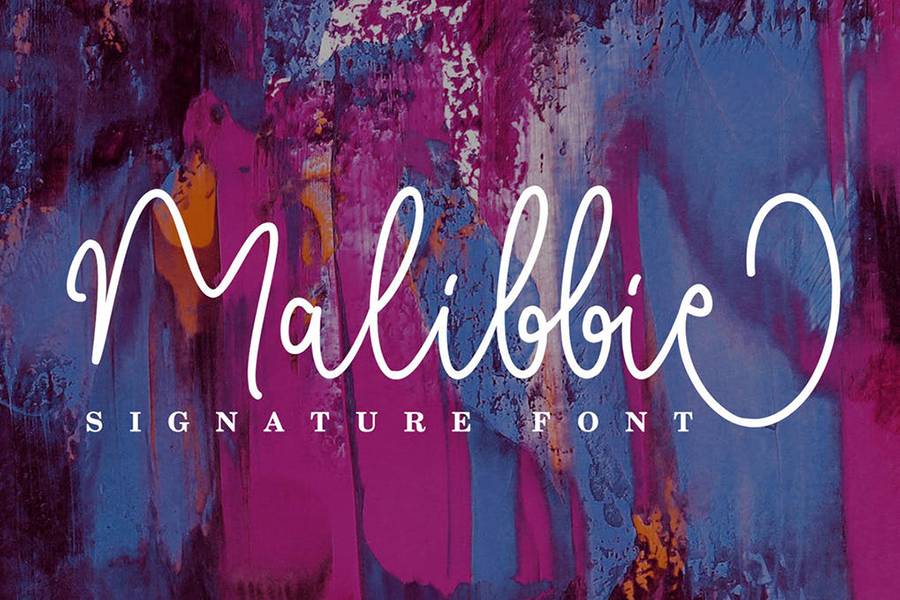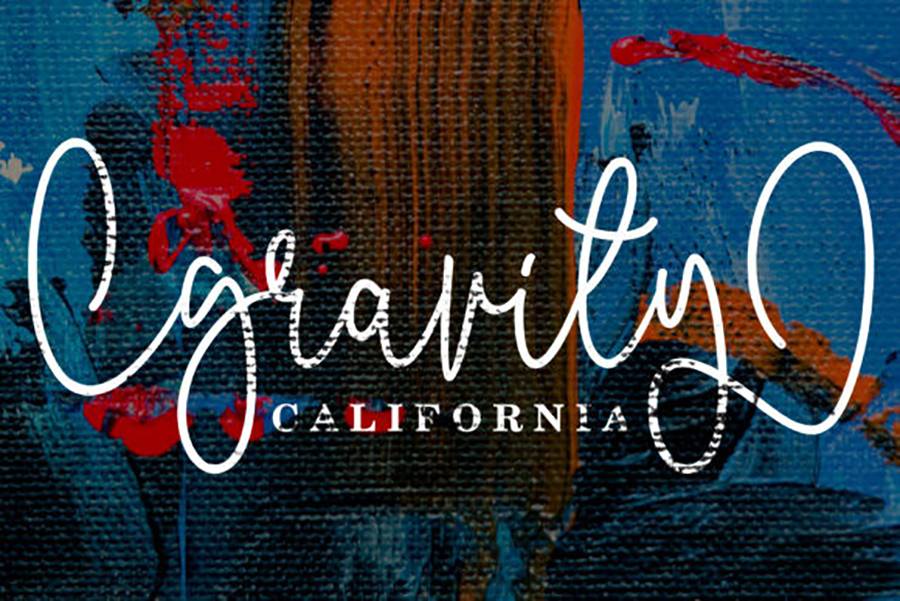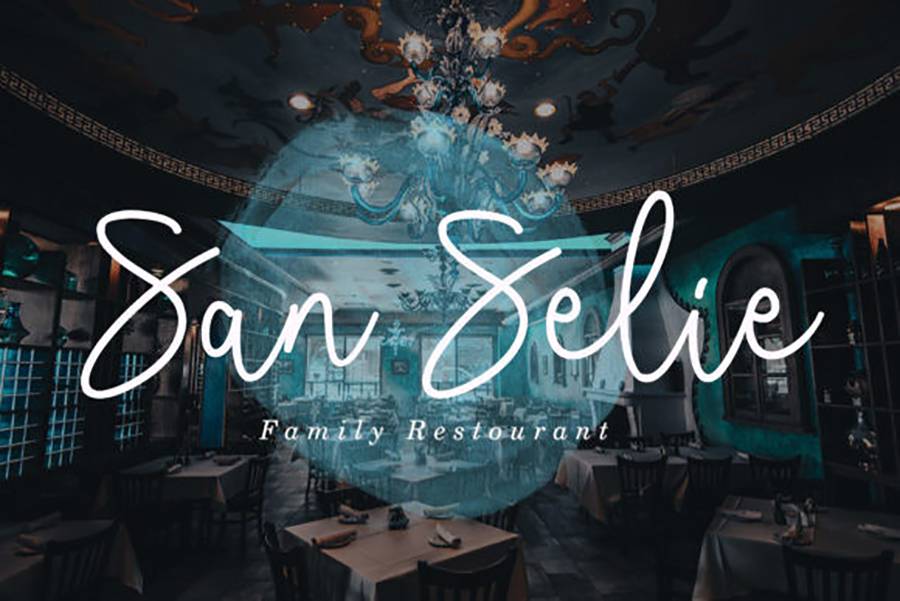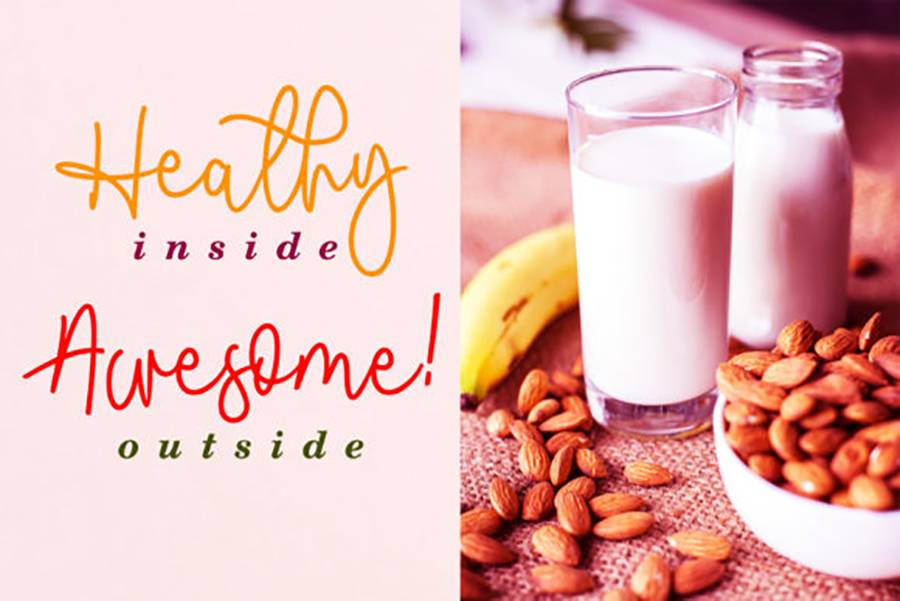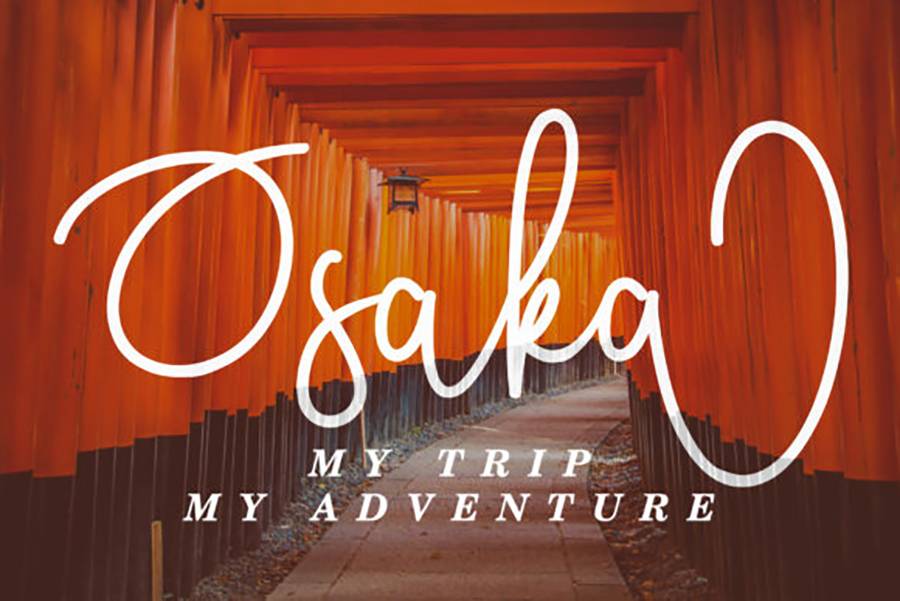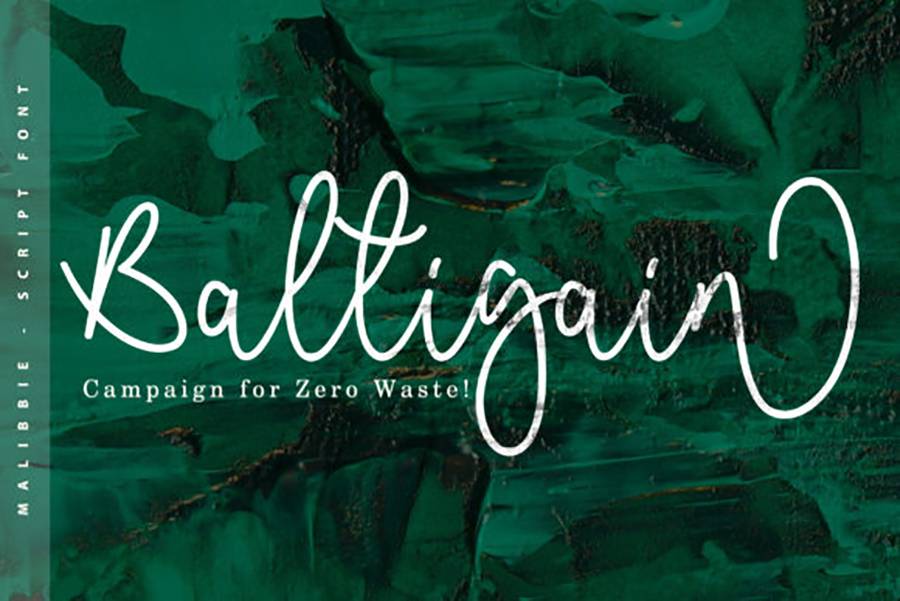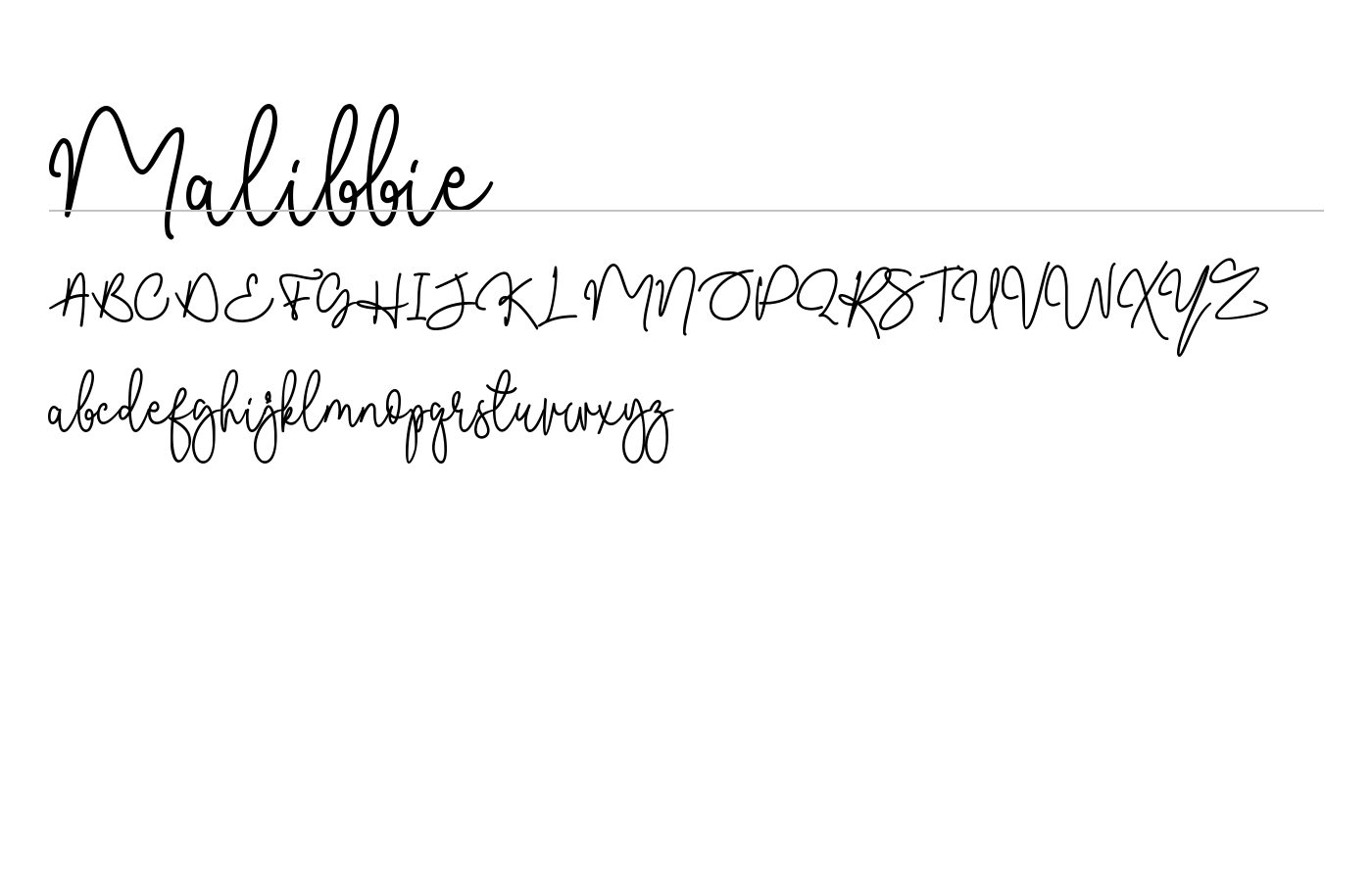
Malibbie Monoline Script is a light, elegant handwritten font characterized by its smooth, delicate lines and playful, flowing letterforms. Its monoline strokes and casual yet refined style make it perfect for personal branding, invitations, and creative projects that seek a friendly and approachable feel. This font works beautifully for headlines and decorative text where a touch of charm and personality is desired.
Malibbie Monoline Script
About Malibbie Monoline Script
| Font family | Malibbie Monoline Script |
| Designer | Aldedesign 2019 (Alde Saputro) |